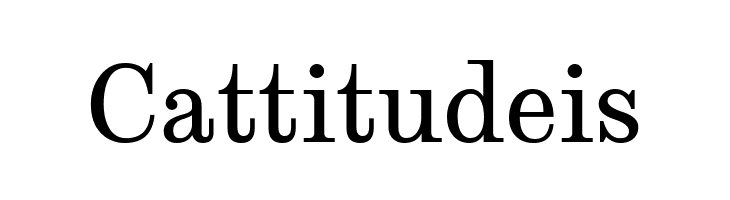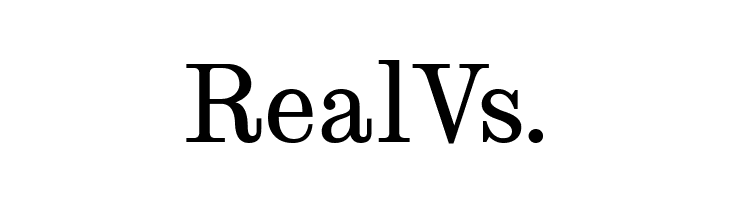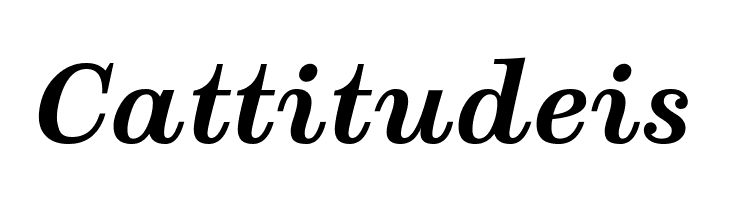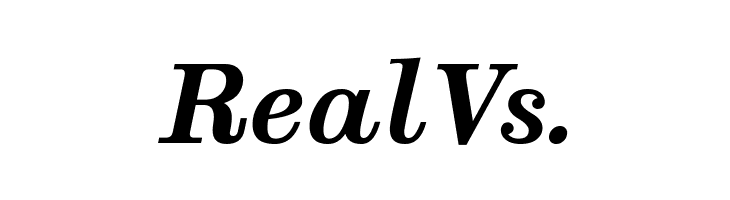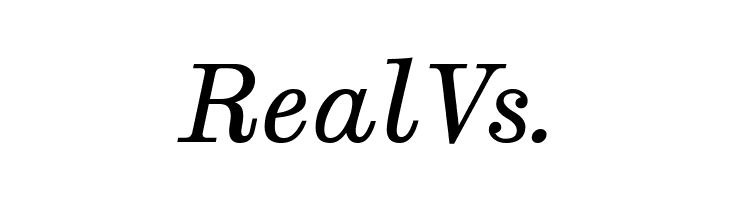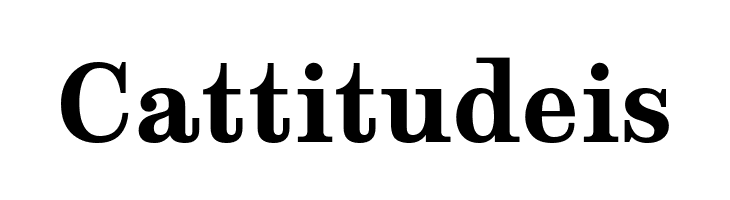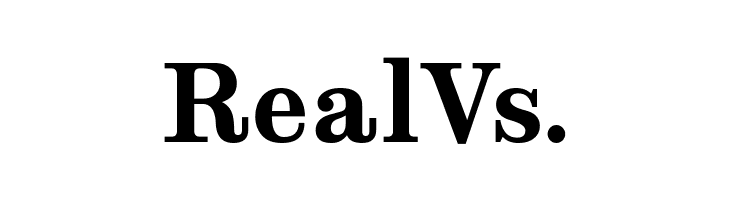
A playful, bold font with rounded, chunky letters and a whimsical style.
Decorative font featuring illustrated lips for each character.
A tall, narrow, and modern font with clean lines and a cohesive style.
A modern, tall, and narrow sans-serif font with a clean and professional appearance.
A bold, playful font with a hand-drawn, energetic style.
A bold, hollow font with a three-dimensional, outlined style.
A bold, geometric font with outlined characters and a three-dimensional effect.
A playful, rounded font with a hand-drawn feel and consistent weight.
A dynamic, handwritten-style font with expressive, fluid strokes.
A tall, narrow font with clean lines and a modern, elegant style.
A tall, narrow font with clean lines and a modern, minimalist style.
A bold, dynamic script font with a strong, fluid presence.
Bold geometric sans-serif with stencil-like, high-contrast text and graphic elements.
A bold, modern sans-serif font with geometric precision and strong readability.
A bold, modern font with geometric lines and a monospaced appearance.
A bold, geometric font with a playful and modern aesthetic.
A pixelated, blocky font inspired by retro digital displays.
A pixelated, monospaced font with a retro digital aesthetic.
A pixelated, blocky font with a retro digital aesthetic.
A classic serif font with high contrast and elegant serifs.
A bold serif font with strong, classic lines and pronounced serifs.
A bold, italic serif font with strong strokes and elegant slant.
An elegant italic serif font with classic, flowing letterforms.
A bold, cartoonish font with playful, monster-like characters.
A bold, playful font with chunky, irregular letters and a retro comic book vibe.
A playful, monster-themed font with bold, animated characters.
A playful, rounded font with a whimsical and friendly style.
A bold, geometric font with a futuristic and segmented design.